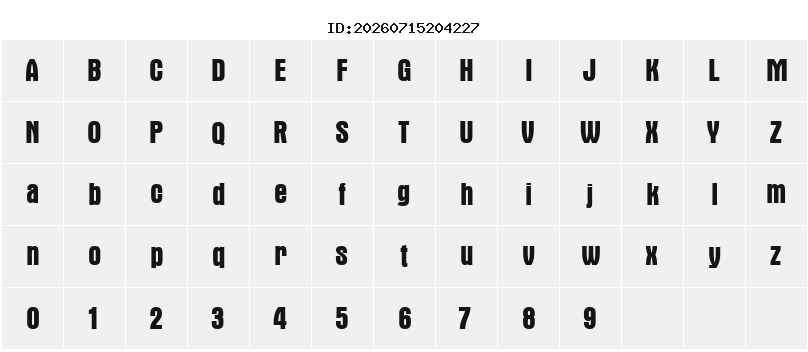
Aurora BdCn BT Preview
• Font Name: Aurora BdCn BT
• Font ID: Aurora Bold Condensed, Swiss 939
• Full Font Name: Aurora Bold Condensed BT
• PostScript Name: AuroraBT-BoldCondensed
About Aurora BdCn BT.ttf
Aurora BdCn BT.ttf is a modern, elegant sans-serif font designed for ultimate readability and visual harmony. Perfect for branding, headlines, web design, and print materials.